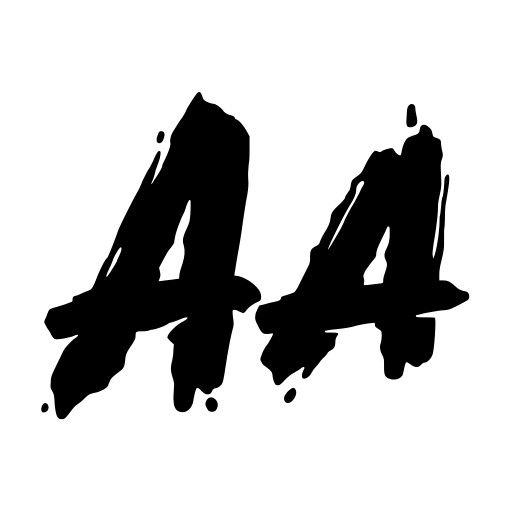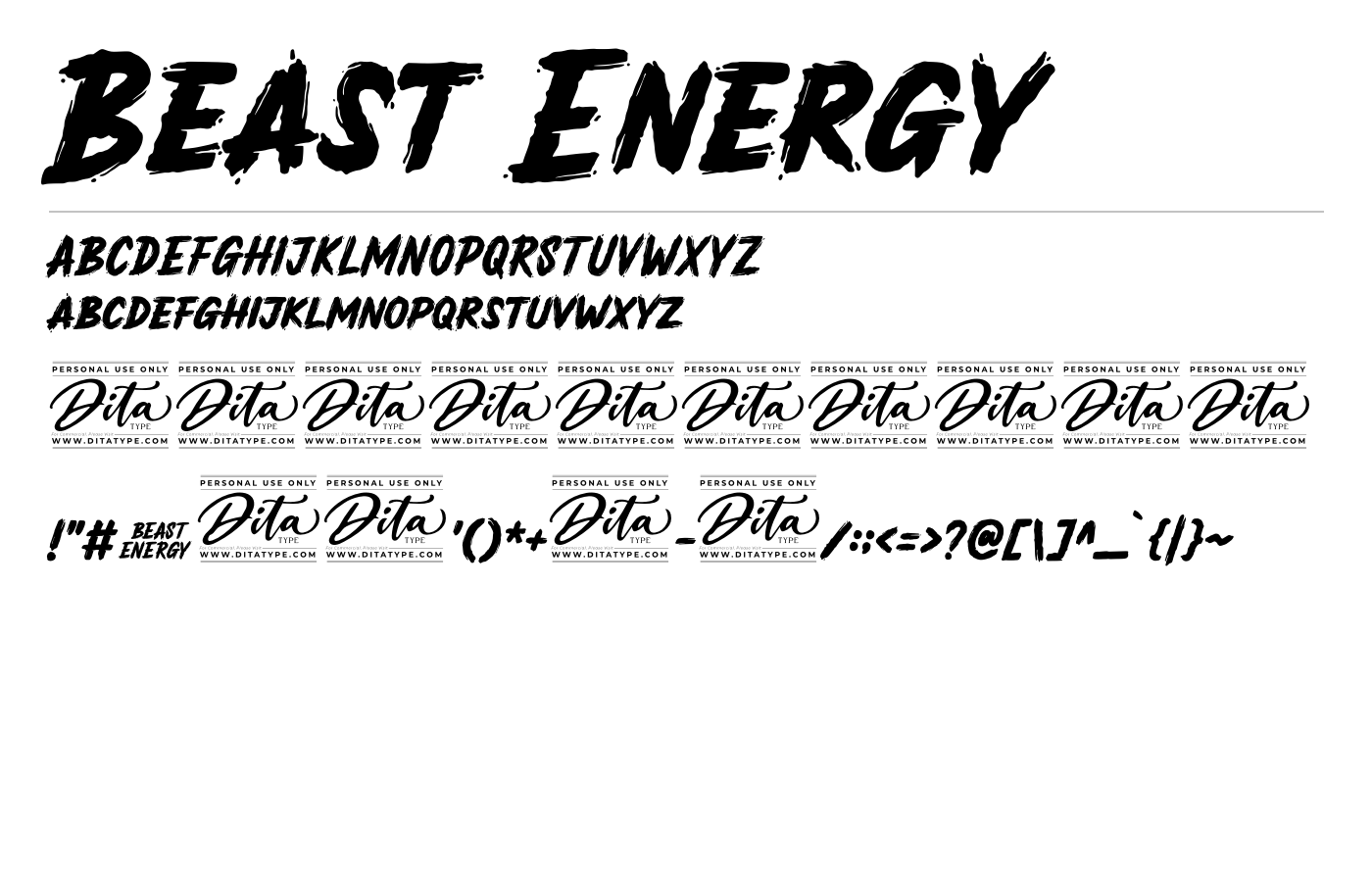
Beast Energy is a bold, energetic brush script font with a rough, hand-painted texture that gives it a raw and powerful feel. Its dynamic, slightly slanted letterforms and uneven edges make it perfect for designs that need a strong, expressive impact, such as sports branding, posters, or edgy logos. This font works best where you want to convey intensity and excitement with a modern, rebellious vibe.
Beast Energy Font
About Beast Energy Font